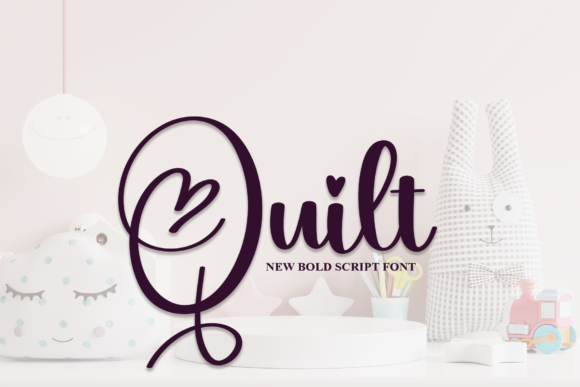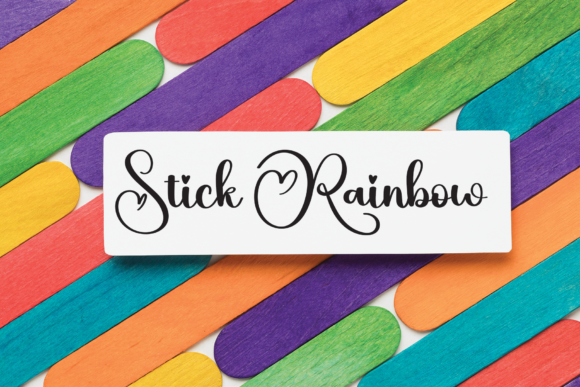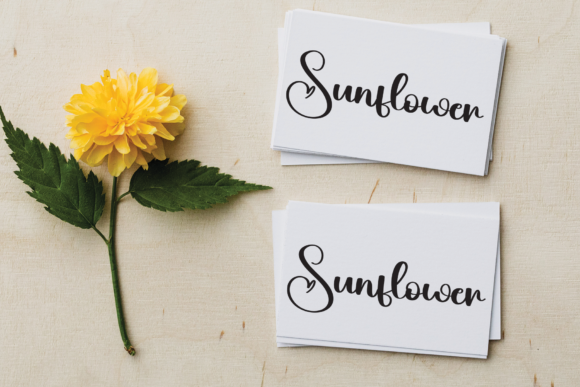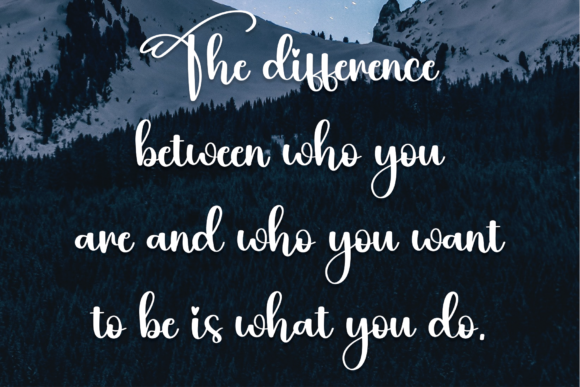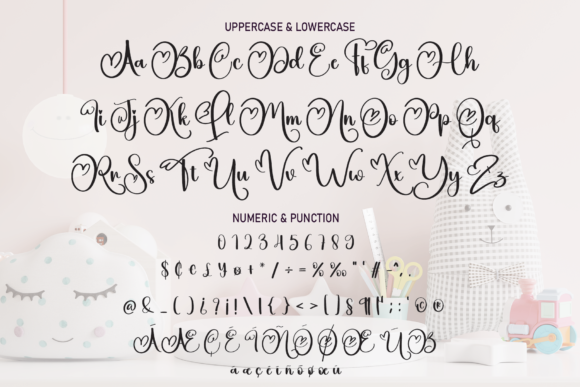
Quilt Font
Inspired by modern calligraphy, this is a font with heart tails. Taking romantic to a whole new level is a font with hearts for dots—you can find them on characters like “i” and “j”.
With this font, your messages will become really super cute. This font is perfect for posters, greeting cards, t-shirts, branding materials, quotes, and any other amazing projects you are working on.